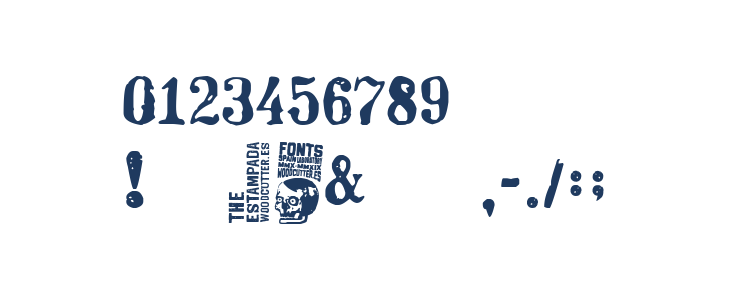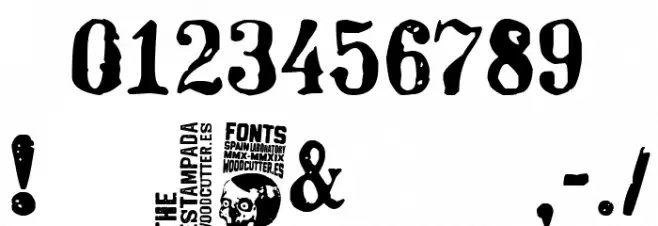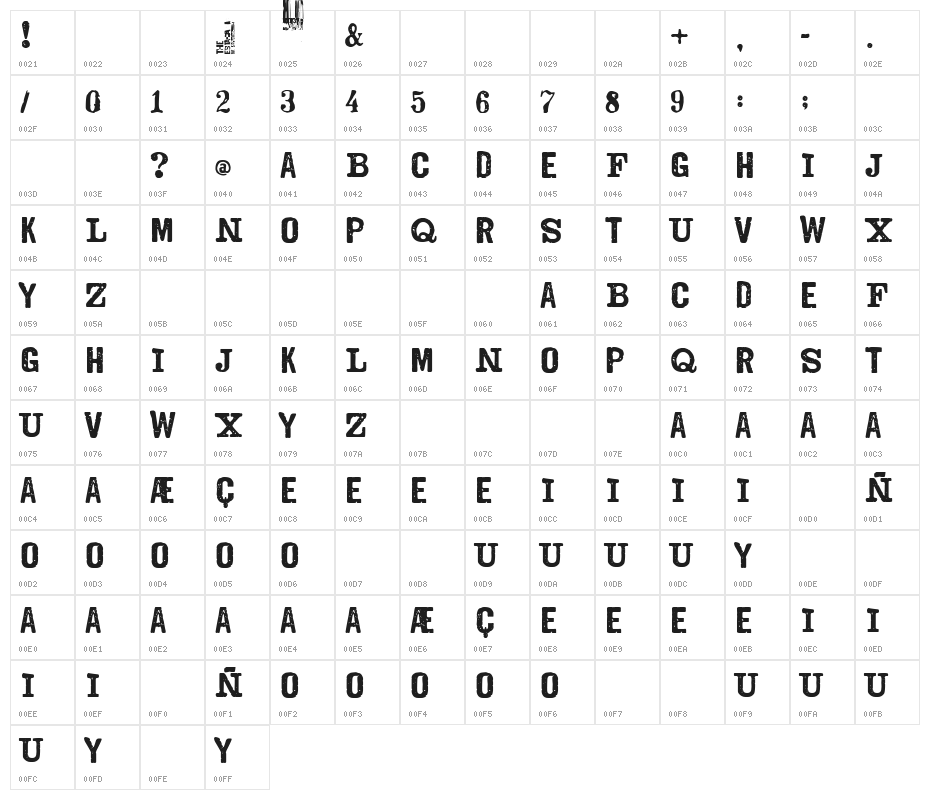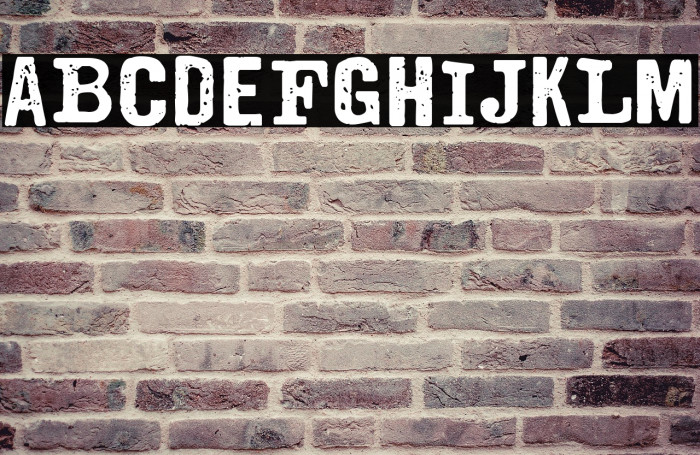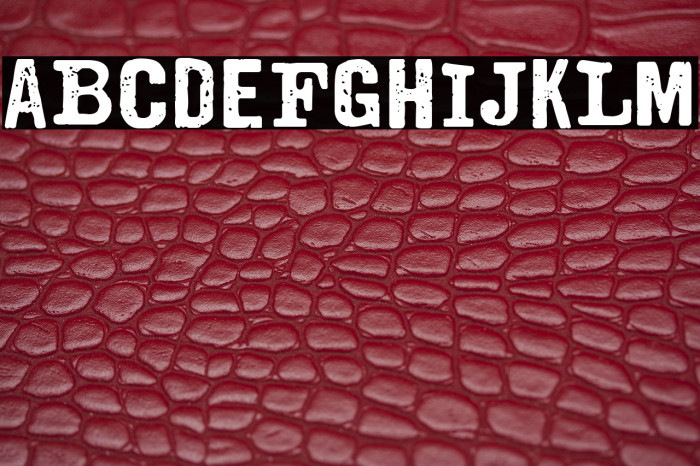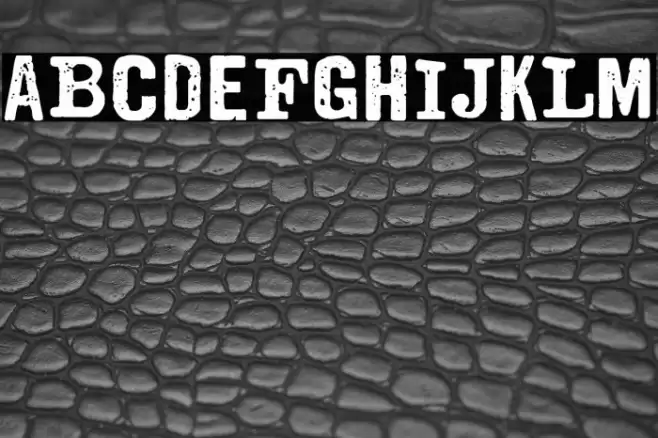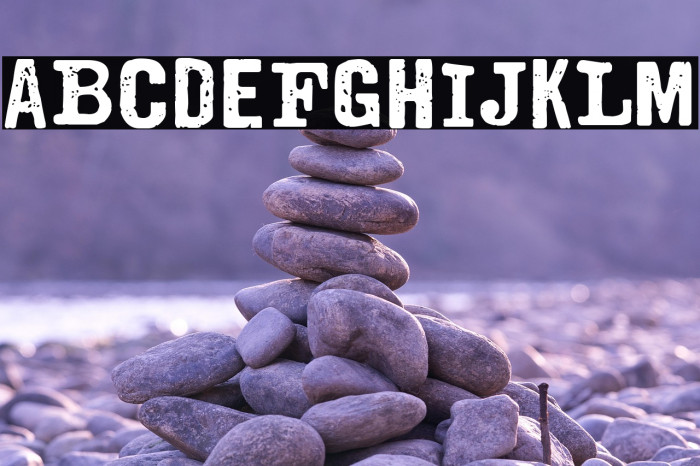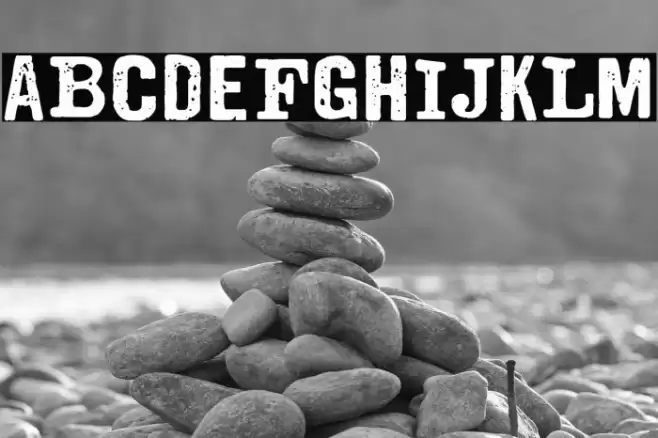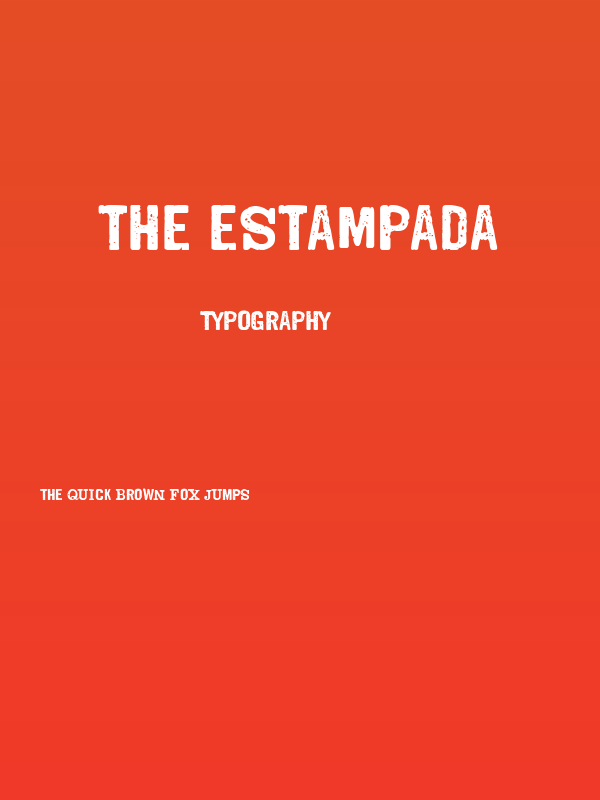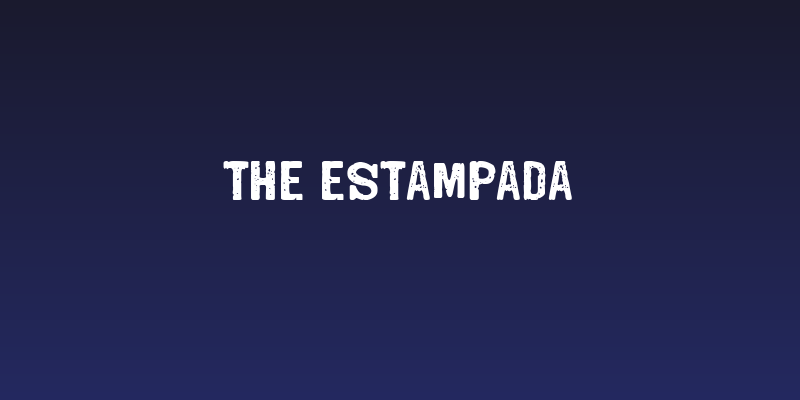
The Estampada Font
The Estampada Description
This font features a bold and rugged design, characterized by its distressed and textured appearance. The letters have a strong presence with thick strokes and a slightly uneven surface, giving it a vintage and handcrafted feel. The uppercase and lowercase letters maintain a consistent style, with the numbers and special characters following suit. The overall look is reminiscent of old woodblock prints or stamped lettering, making it ideal for projects that require a rustic or industrial aesthetic.
| Proposed Projects | Ideal for branding, posters, packaging, and any design work that requires a vintage or industrial touch. |